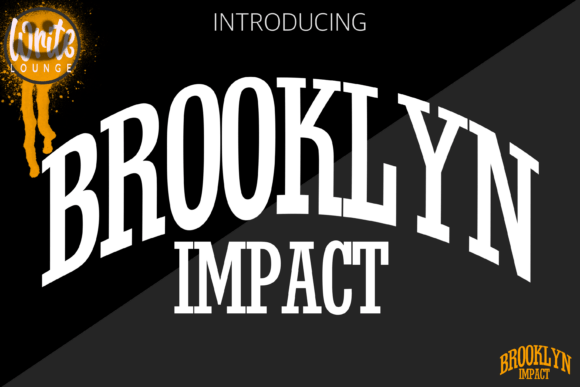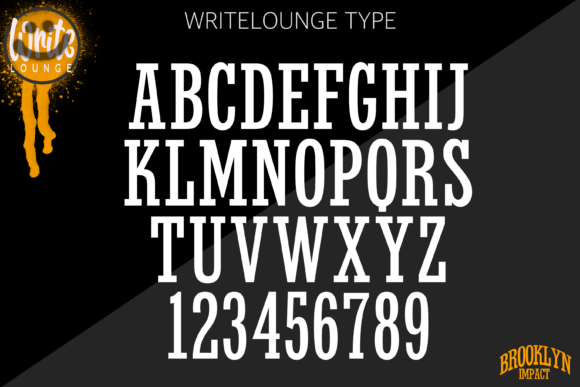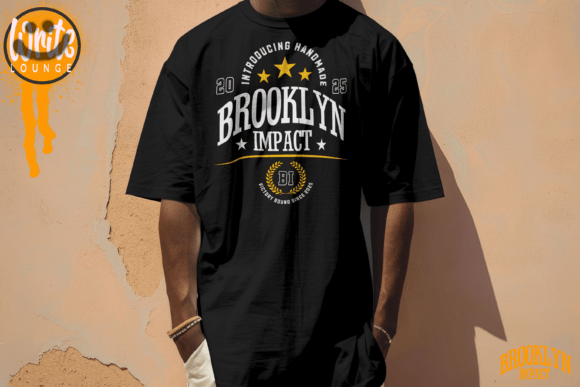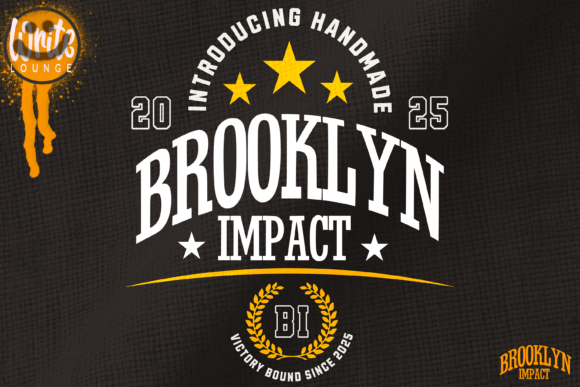
Brooklyn Impact Font
About the Brooklyn Impact Font
Get ready to be inspired by Brooklyn Impact Font, a fresh and dynamic typeface for modern creators. Brooklyn Impact is a bold, all-uppercase college varsity font designed for sports, team branding, and bold statement designs. Inspired by classic university lettering, this typeface brings a strong, athletic, and dynamic feel to any project.
This font excels in headlines, logos, and short, impactful phrases where its bold presence commands attention. It’s ideal for projects needing a strong, energetic feel—think sports apparel, event posters, or branding for fitness companies. Avoid using it for body text or long-form content; its weight and large x-height make it unsuitable for readability in extended passages.
Pairing Brooklyn Impact with a clean sans-serif like Open Sans or a more refined serif like Merriweather provides a balanced contrast. For a more playful look, consider pairing it with a slightly rounded geometric sans-serif.
Brooklyn Impact’s core personality is bold, athletic, and assertive. Its strong vertical strokes and condensed letterforms project confidence and power.